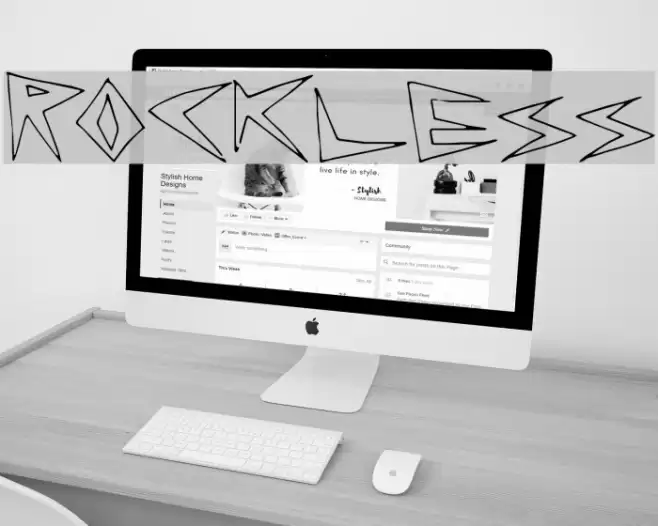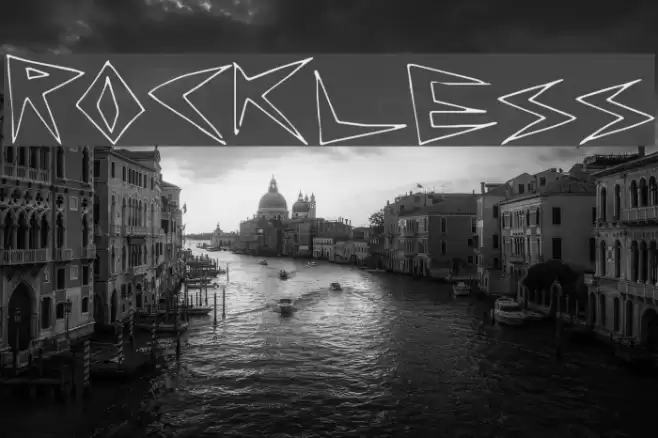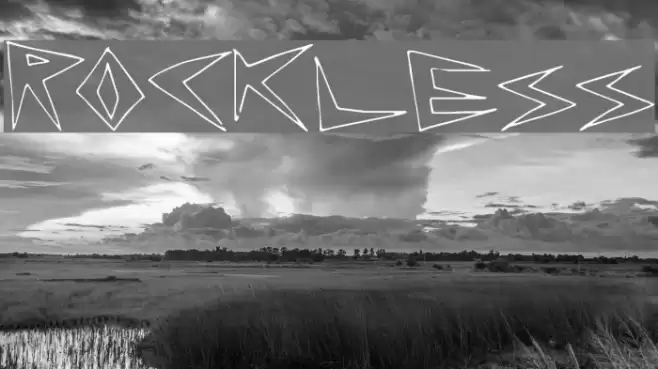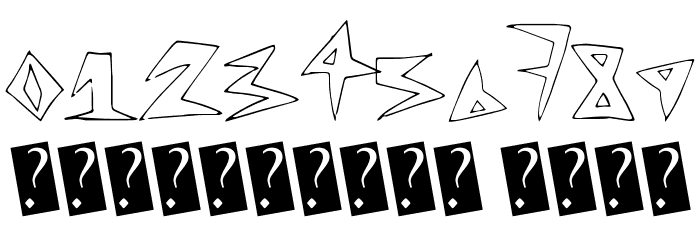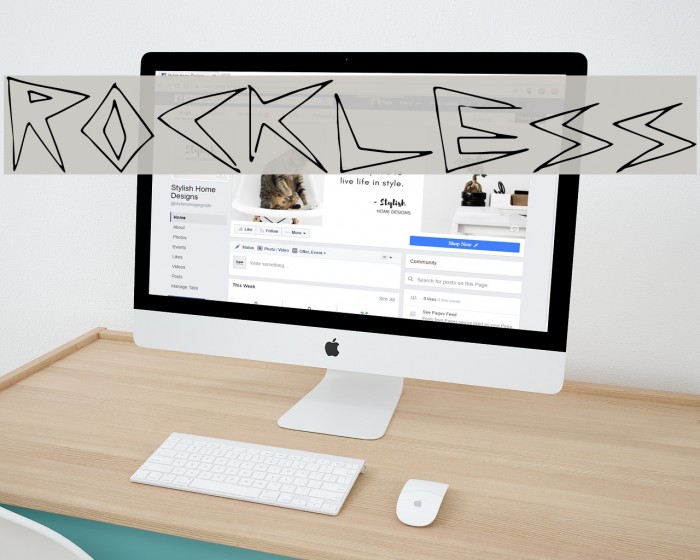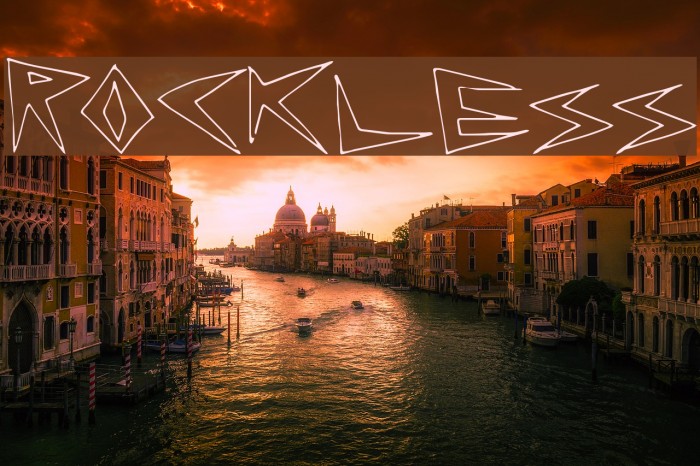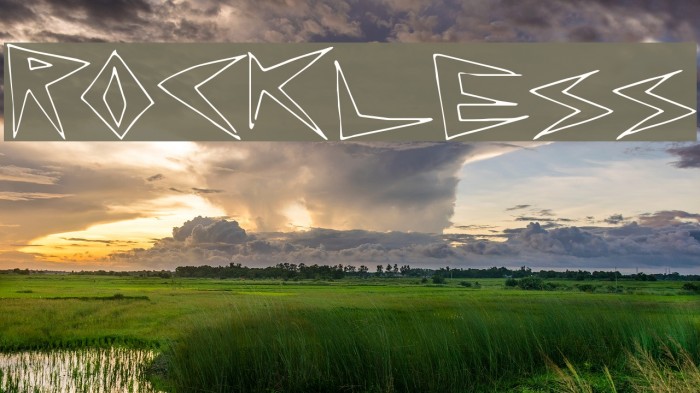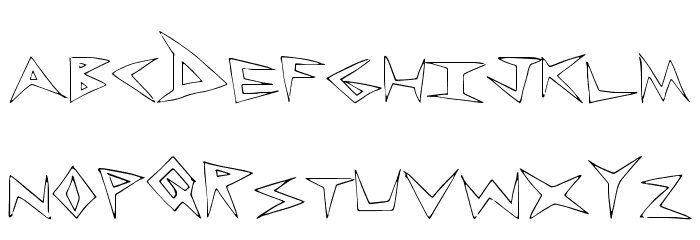
RockLess Font
RockLess Description
This font features a bold, edgy design with sharp, angular lines and a distinct rock-inspired aesthetic. The uppercase letters are characterized by their jagged edges and dynamic forms, creating a sense of movement and energy. The lowercase letters maintain this angular style, offering a cohesive look throughout. Numbers and special characters follow the same design principles, ensuring consistency. The font's unique style makes it ideal for projects that require a strong, impactful visual presence, such as music album covers, posters, or branding for edgy, modern products.
A bold, angular font with a rock-inspired, edgy aesthetic from Uncategorized fonts.
- Proposed Projects: Ideal for music album covers, posters, edgy branding, and modern product designs.
- Overall Style: Modern, Edgy